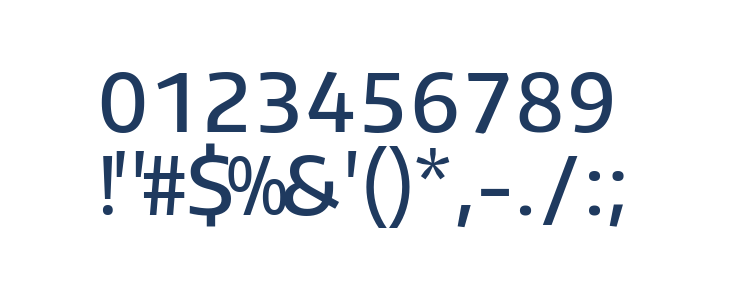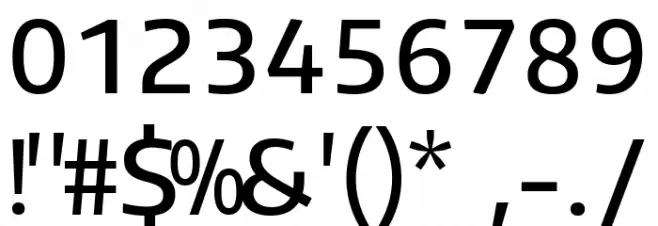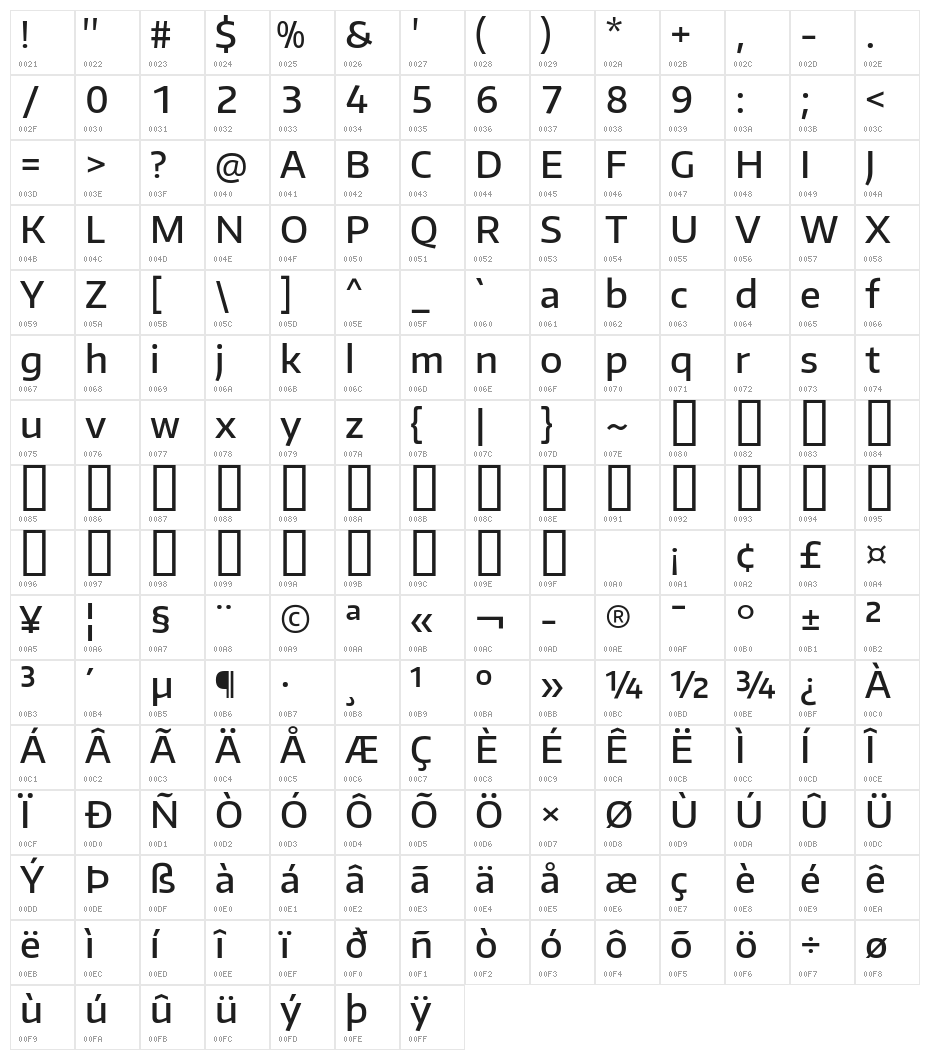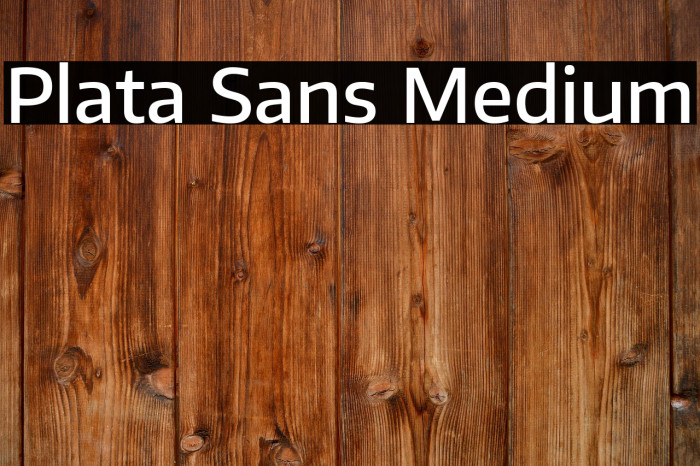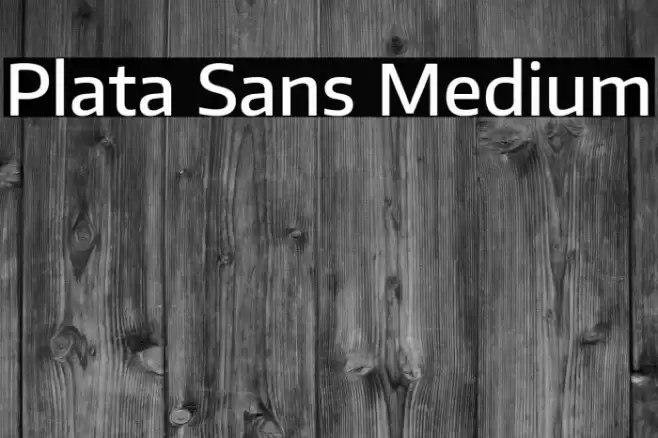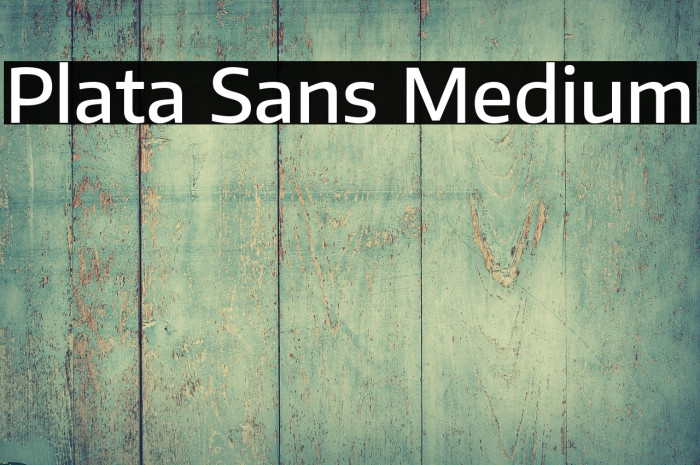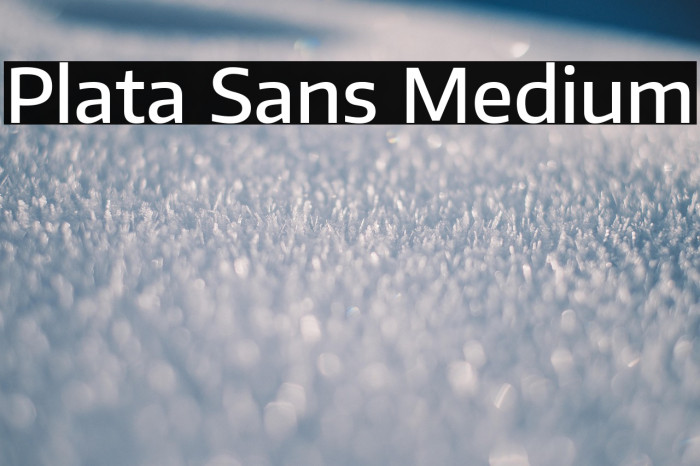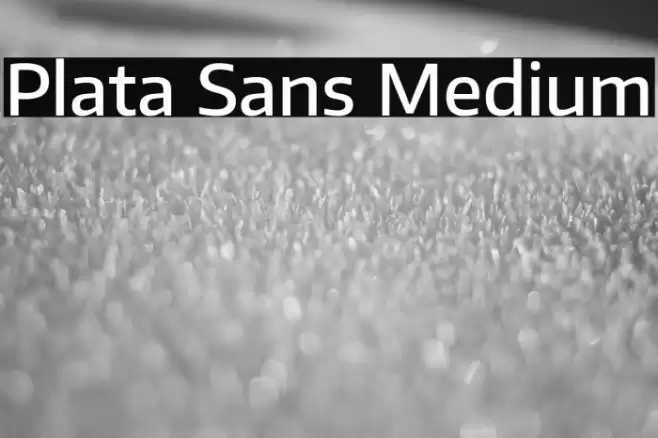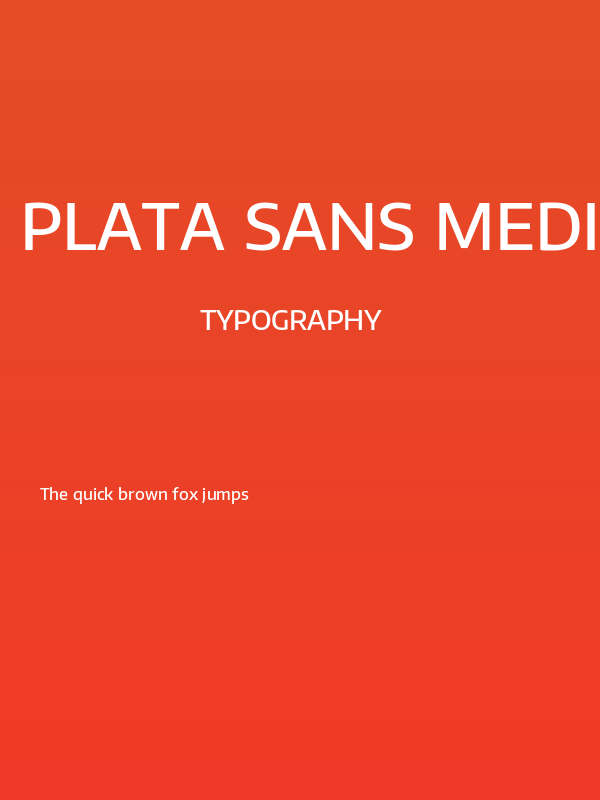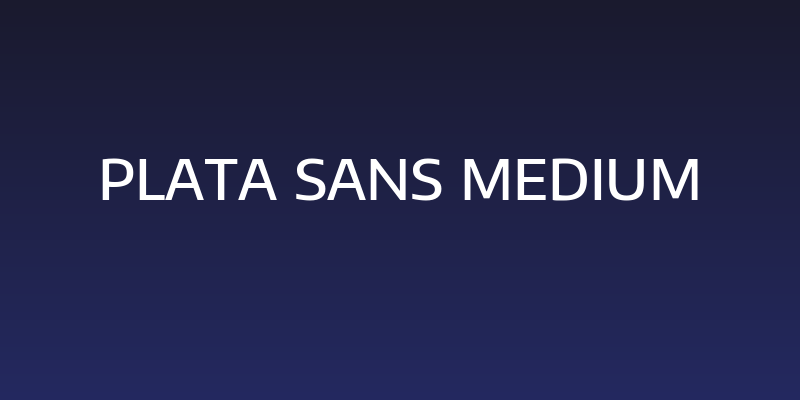
Plata Sans Medium Font
Plata Sans Medium Description
This font features a clean and modern sans-serif design, characterized by its smooth curves and balanced proportions. The uppercase letters are bold and assertive, while the lowercase letters maintain a friendly and approachable appearance. The numerals are clear and easy to read, making them suitable for various applications. The special characters are well-integrated, maintaining the overall aesthetic of the font. Its versatility makes it ideal for both digital and print media, offering a professional yet contemporary look.